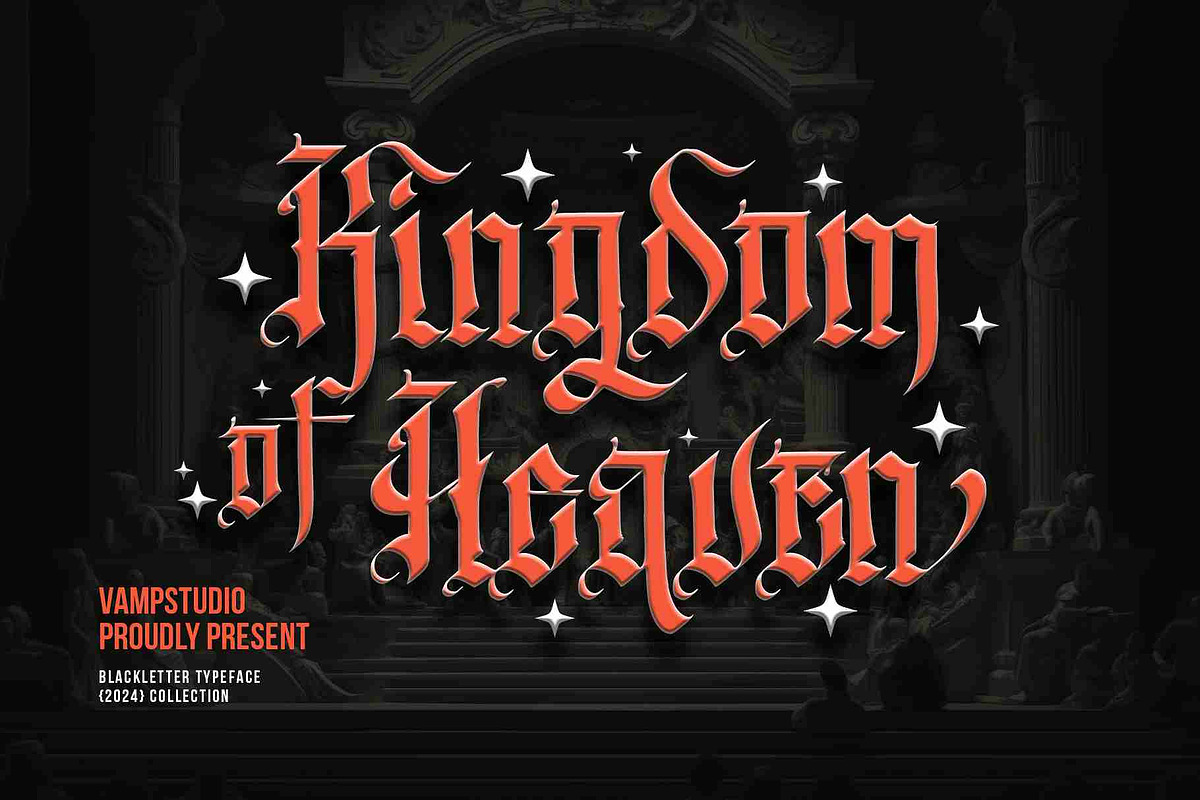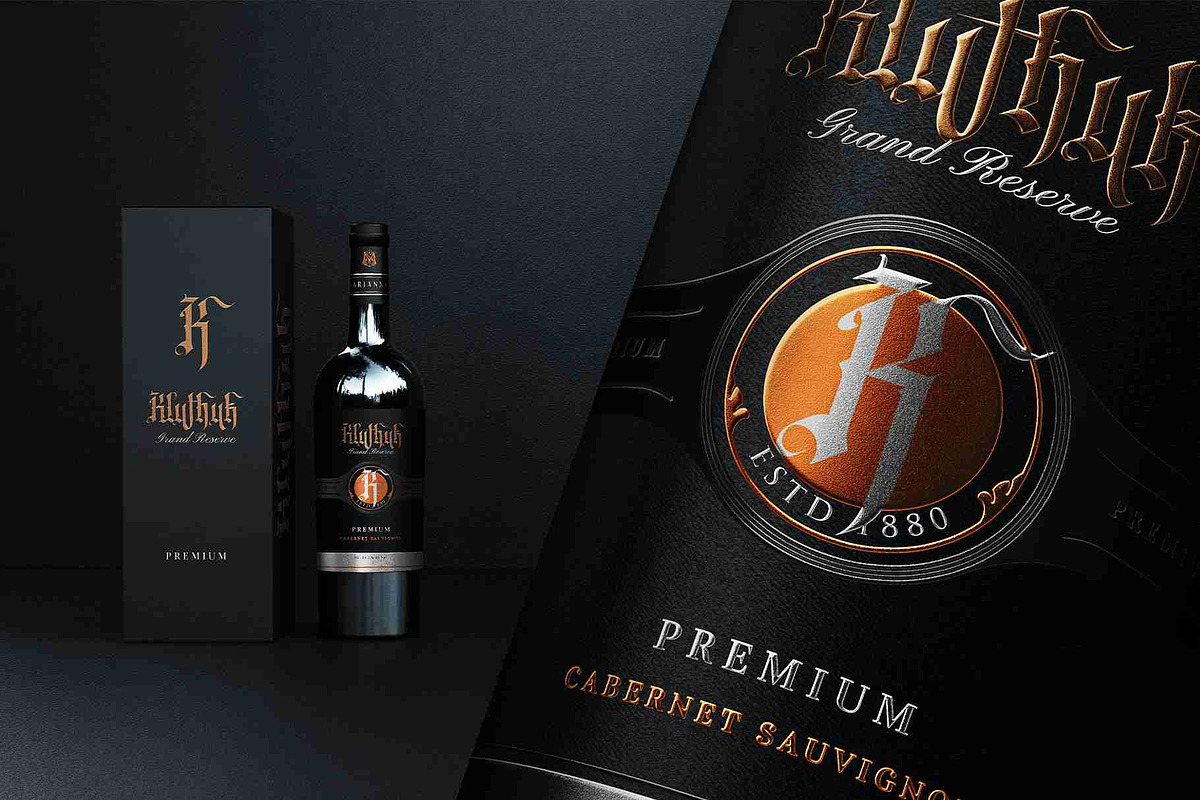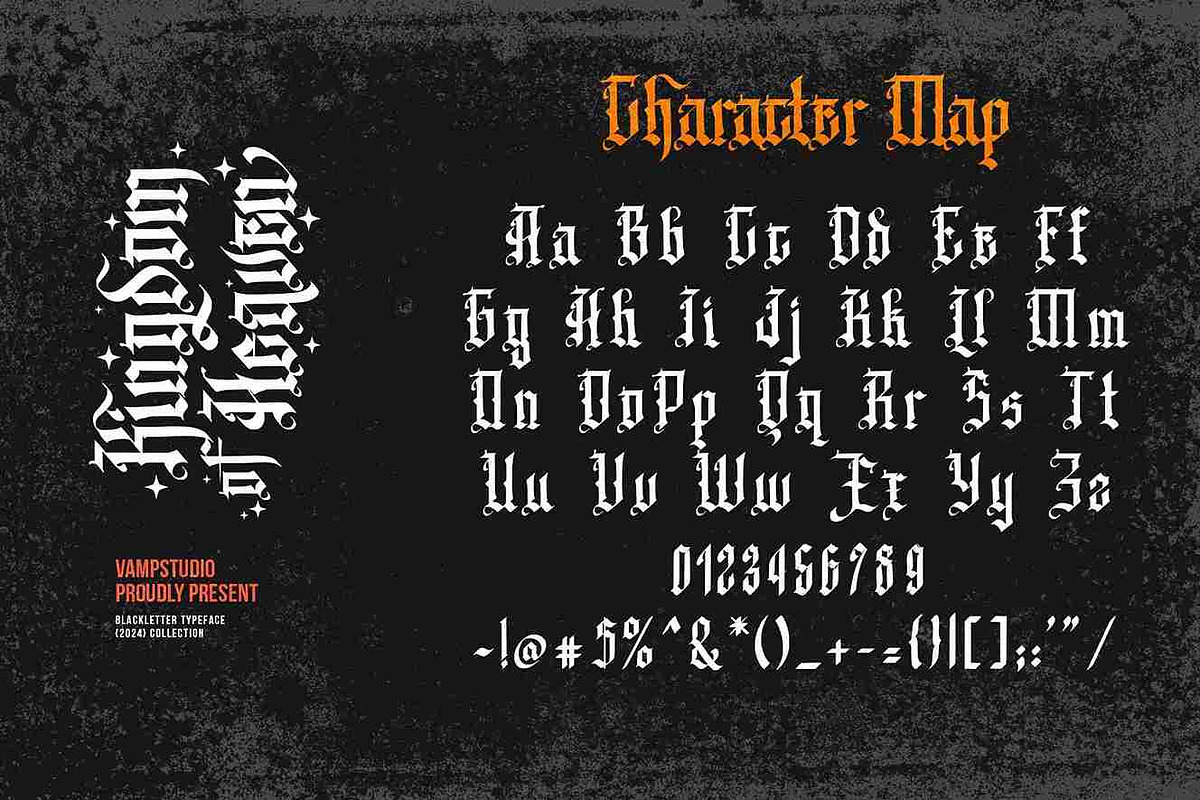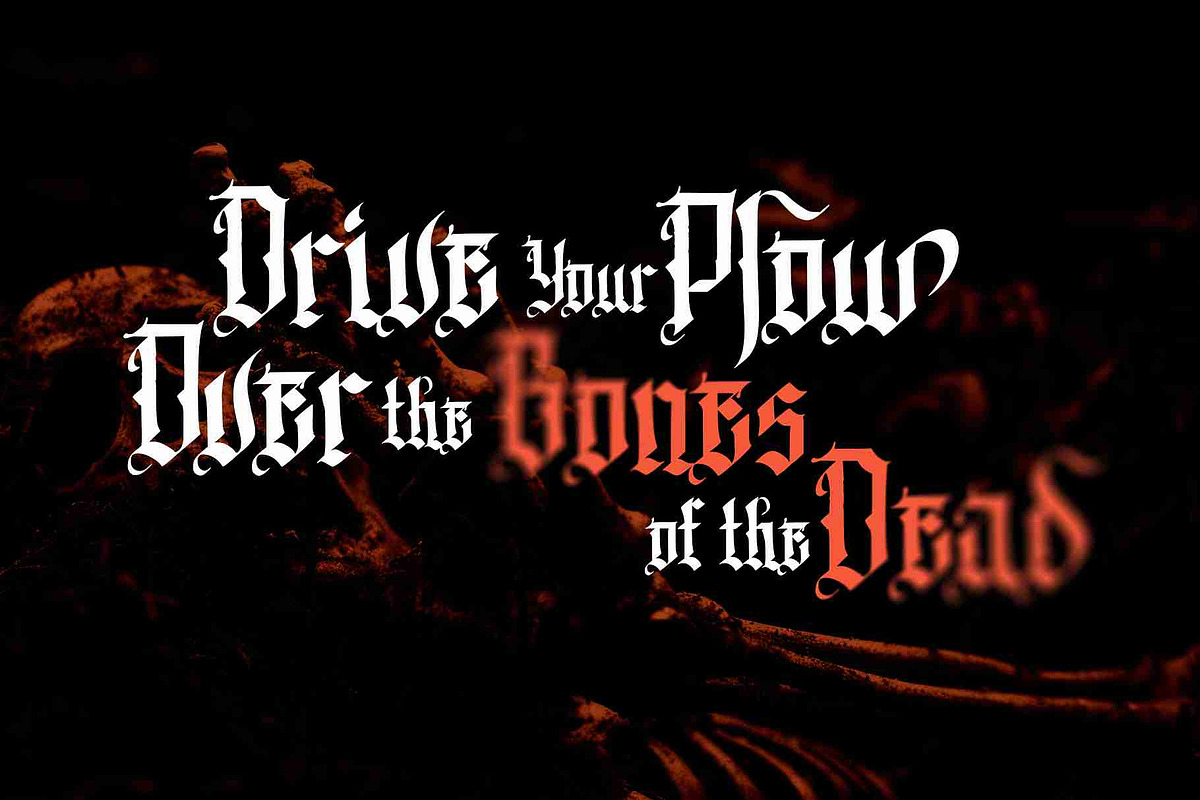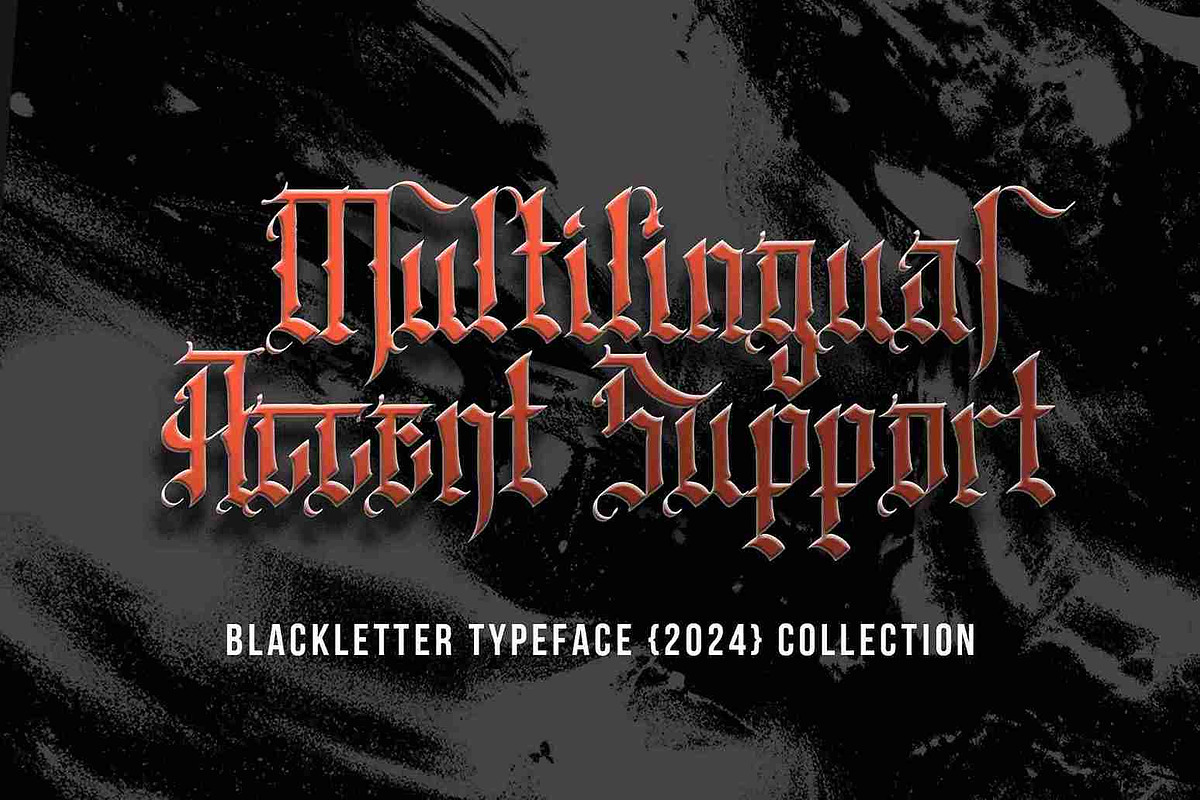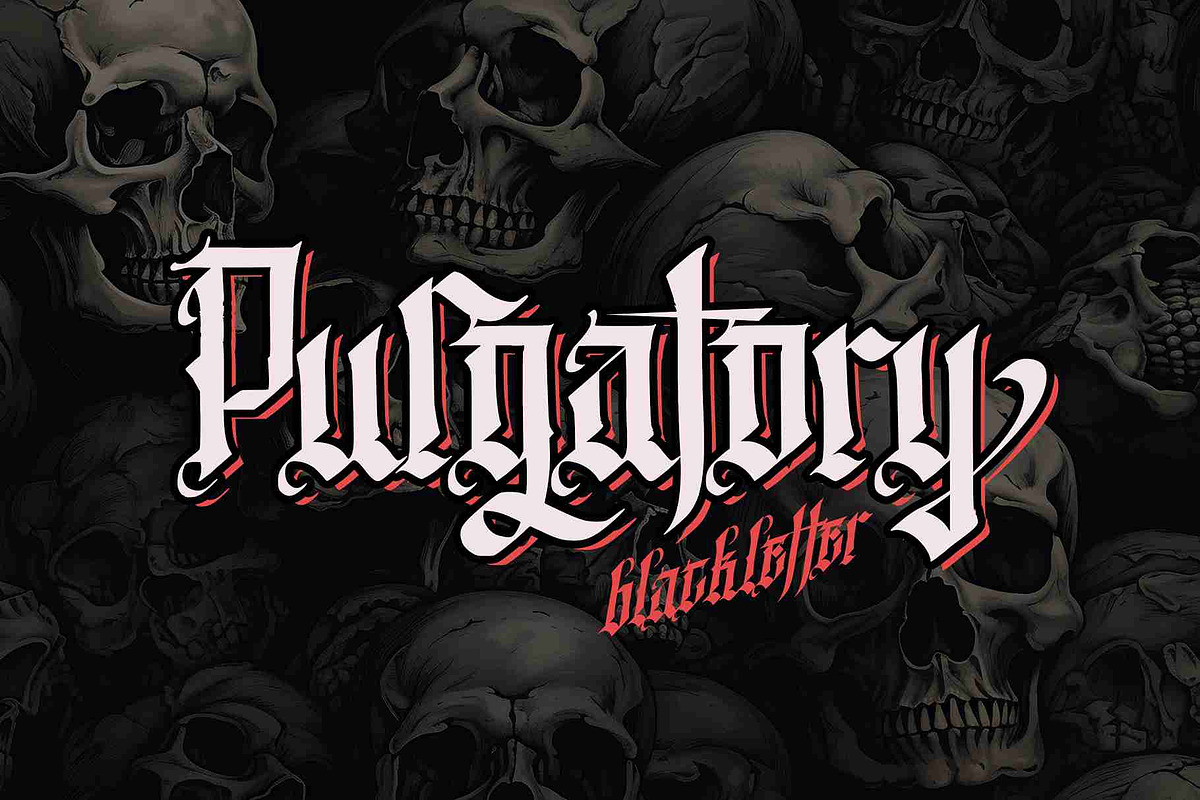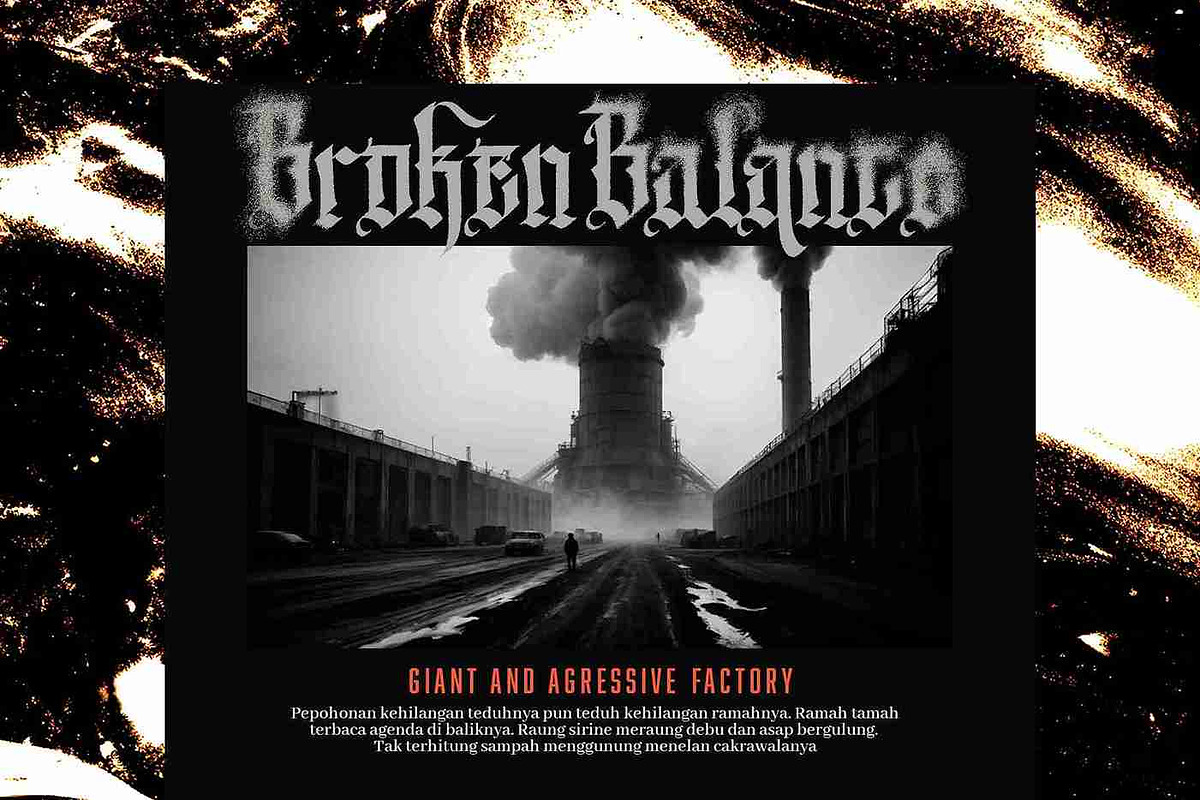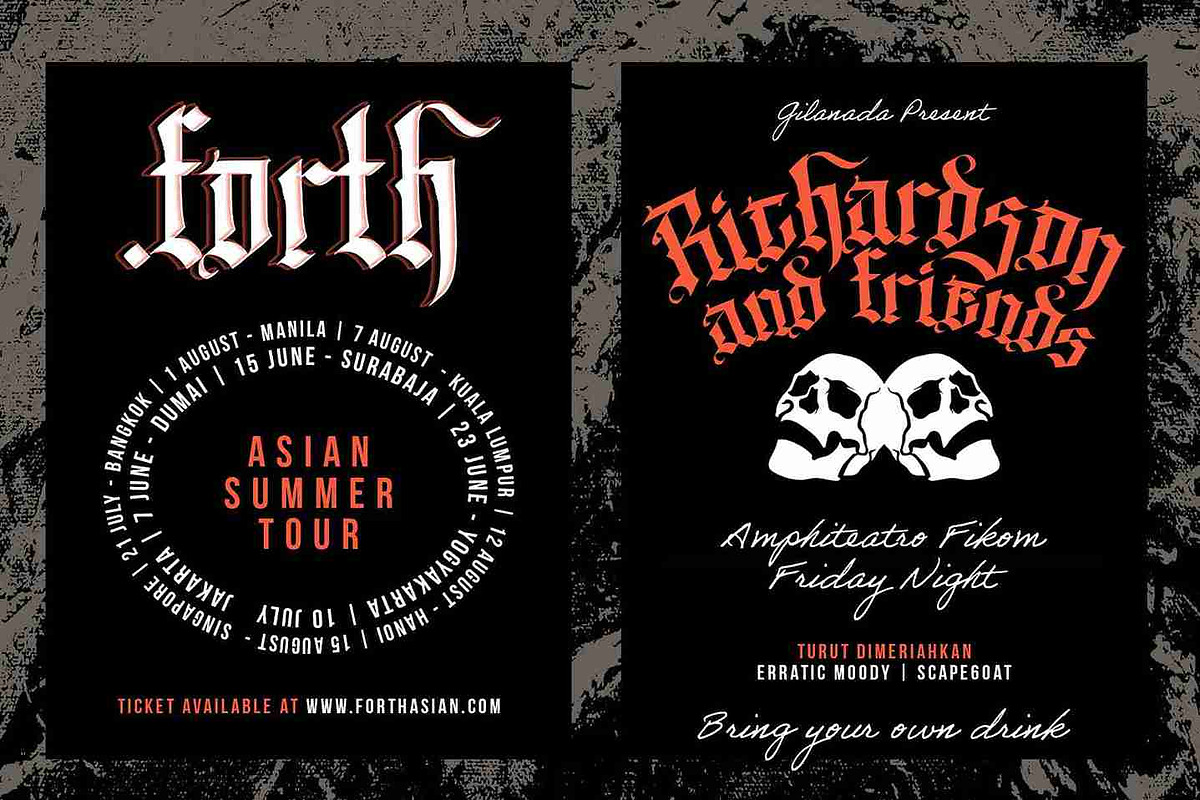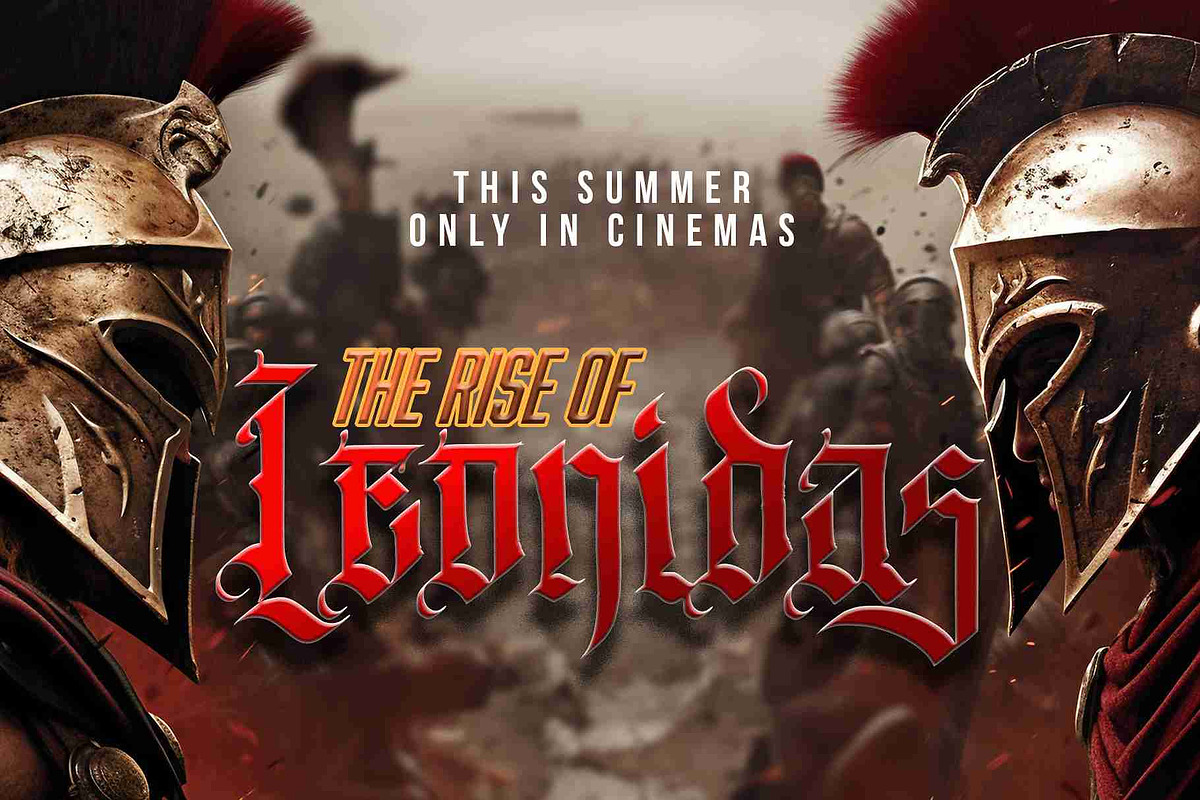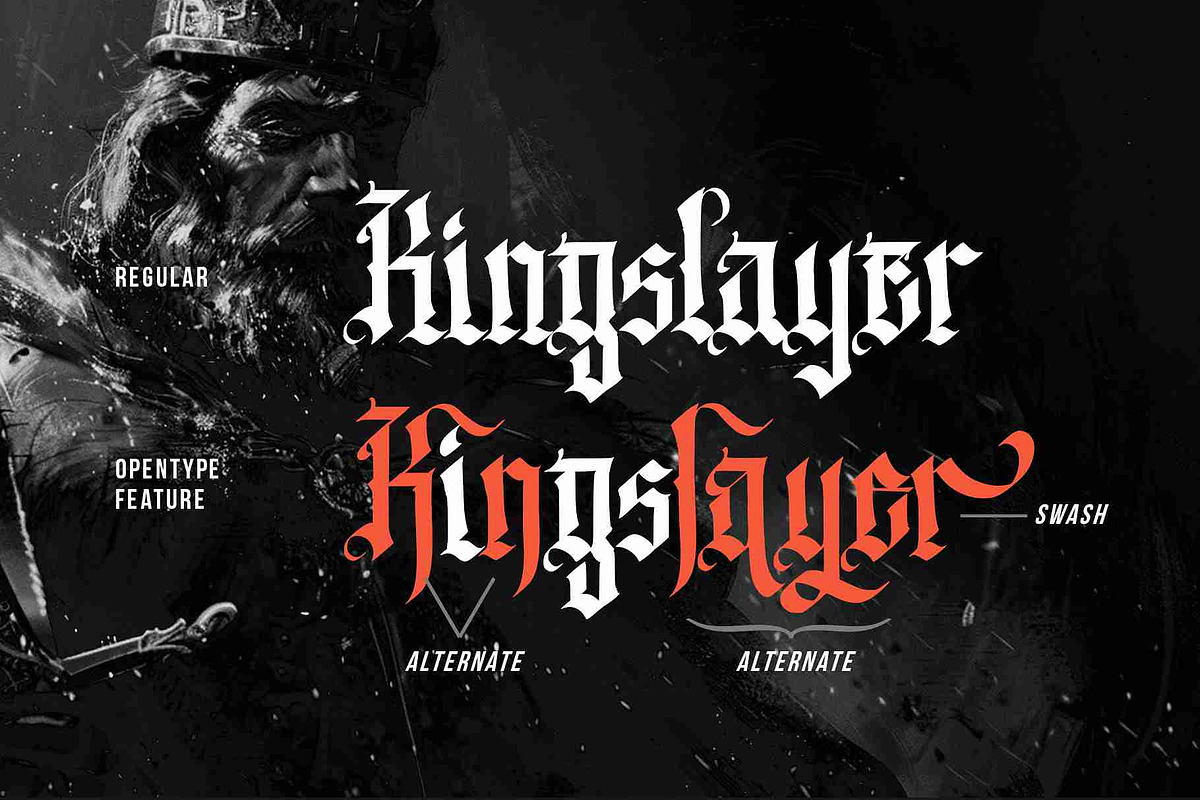
Kingdom Of Heaven - Blackletter
Step into a realm of elegance and grandeur with Kingdom of Heaven, a striking blackletter font that embodies the majesty of medieval script with a modern twist. This powerful typeface captures the essence of ancient manuscripts and royal decrees, making it perfect for projects that require a timeless, regal aesthetic.
Kingdom of Heaven is ideal for a wide range of creative applications, including book covers, posters, luxury branding, invitations, and religious-themed designs. Its bold, intricate details and ornate style make it a perfect choice for high-impact headlines and titles that command attention.
- Majestic Blackletter Style: A classic blackletter font inspired by medieval elegance, updated with modern design elements.
- Detailed & Ornate: Designed with intricate flourishes to create a sense of royalty and refinement.
- Complete Character Set: Includes uppercase, lowercase, numerals, punctuation, and special characters for versatile design use.
- Perfect for Print & Digital: Ideal for branding, wedding invitations, posters, album covers, and more.
Elevate your designs with the noble and timeless beauty of Kingdom of Heaven.